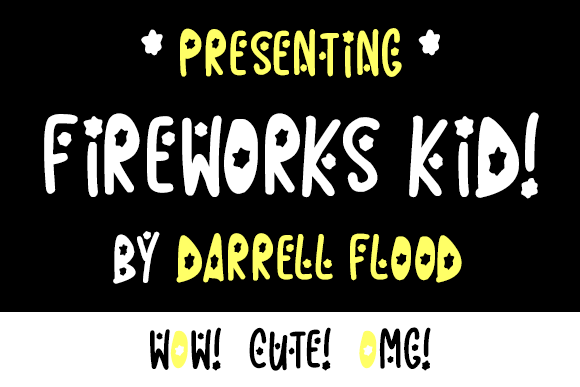
Fireworks Kid Font
About Fireworks Kid Font
Fireworks Kid fun, decorative font in a thick marker style. This font is a great way to enhance your sparkly, special occasions!